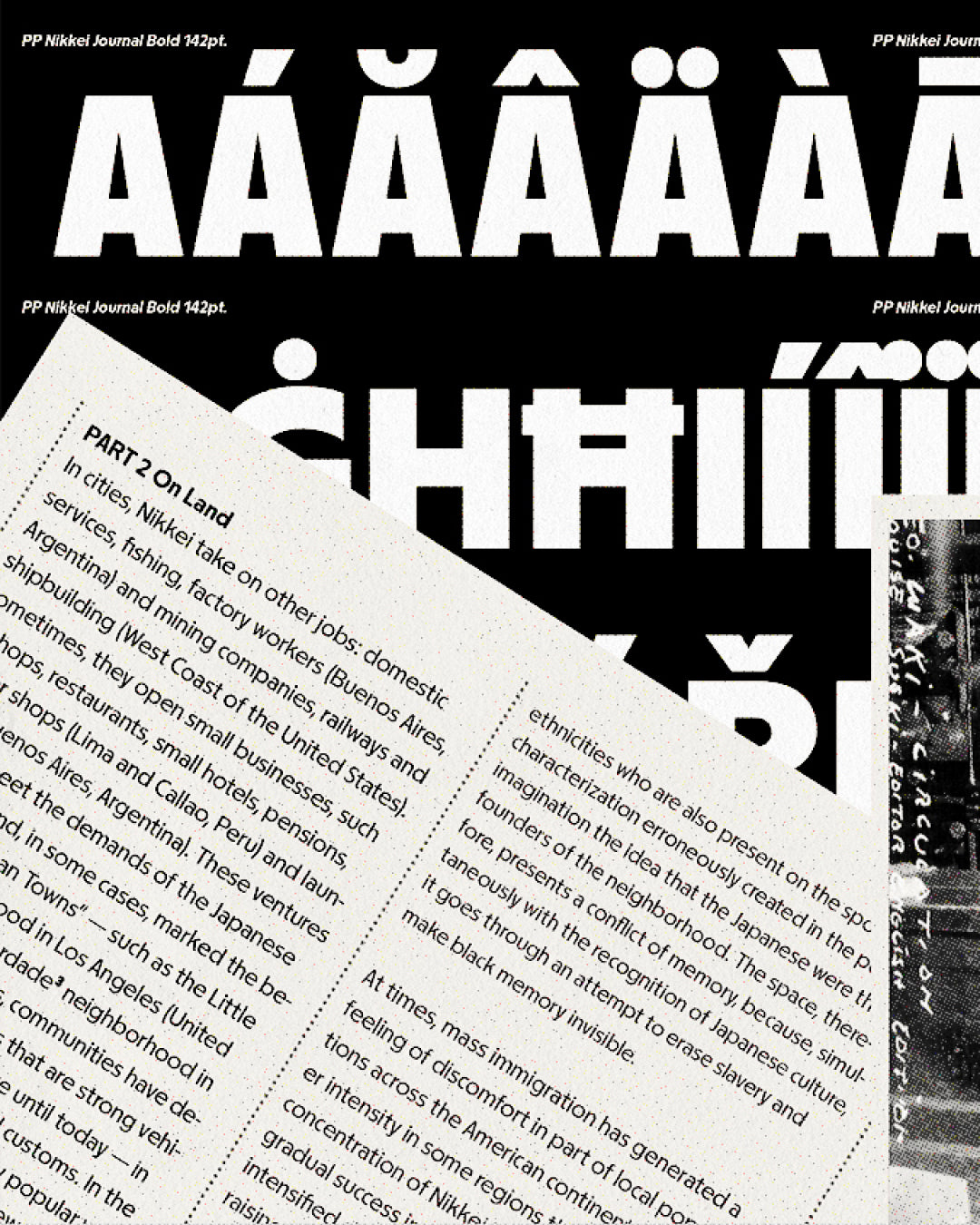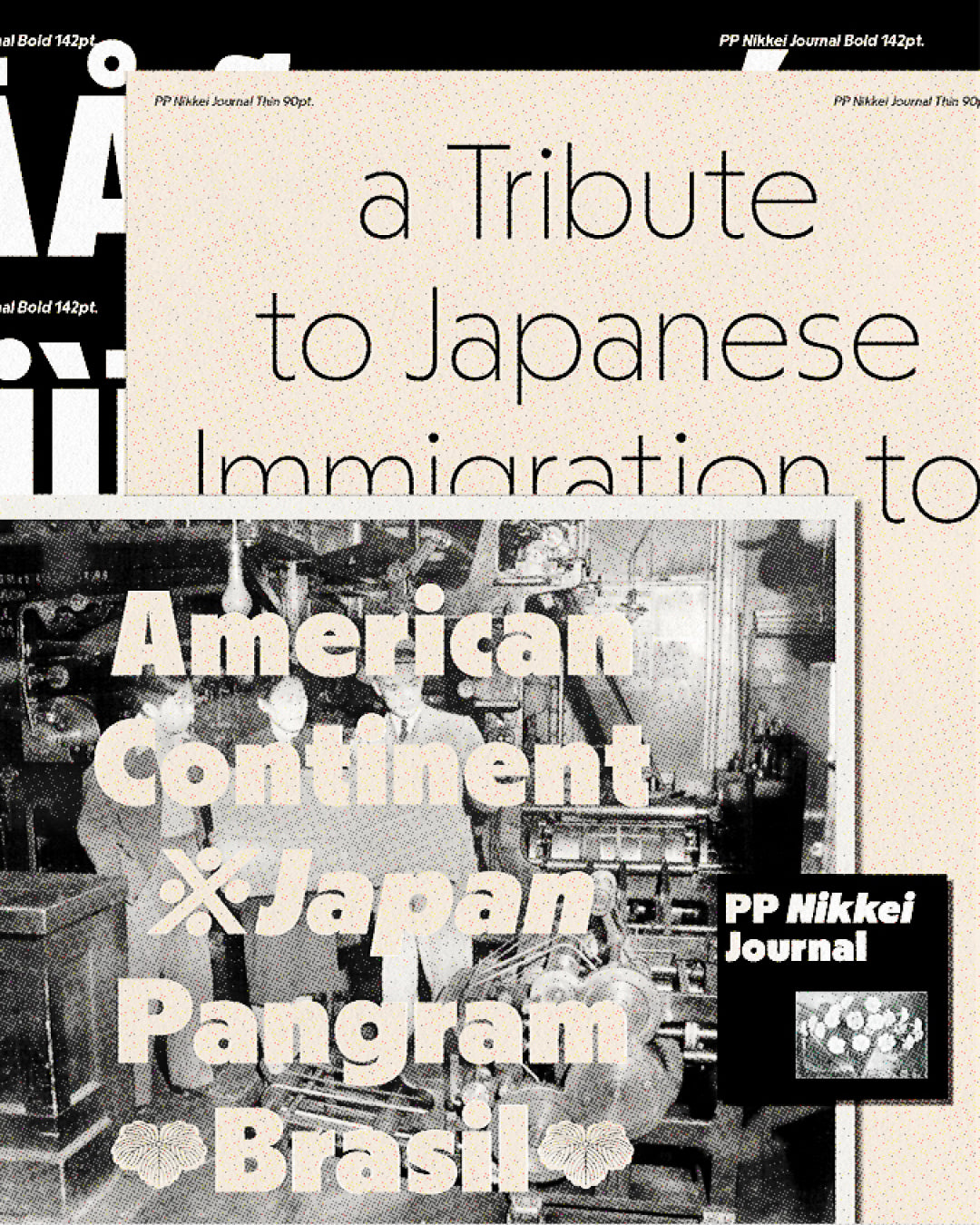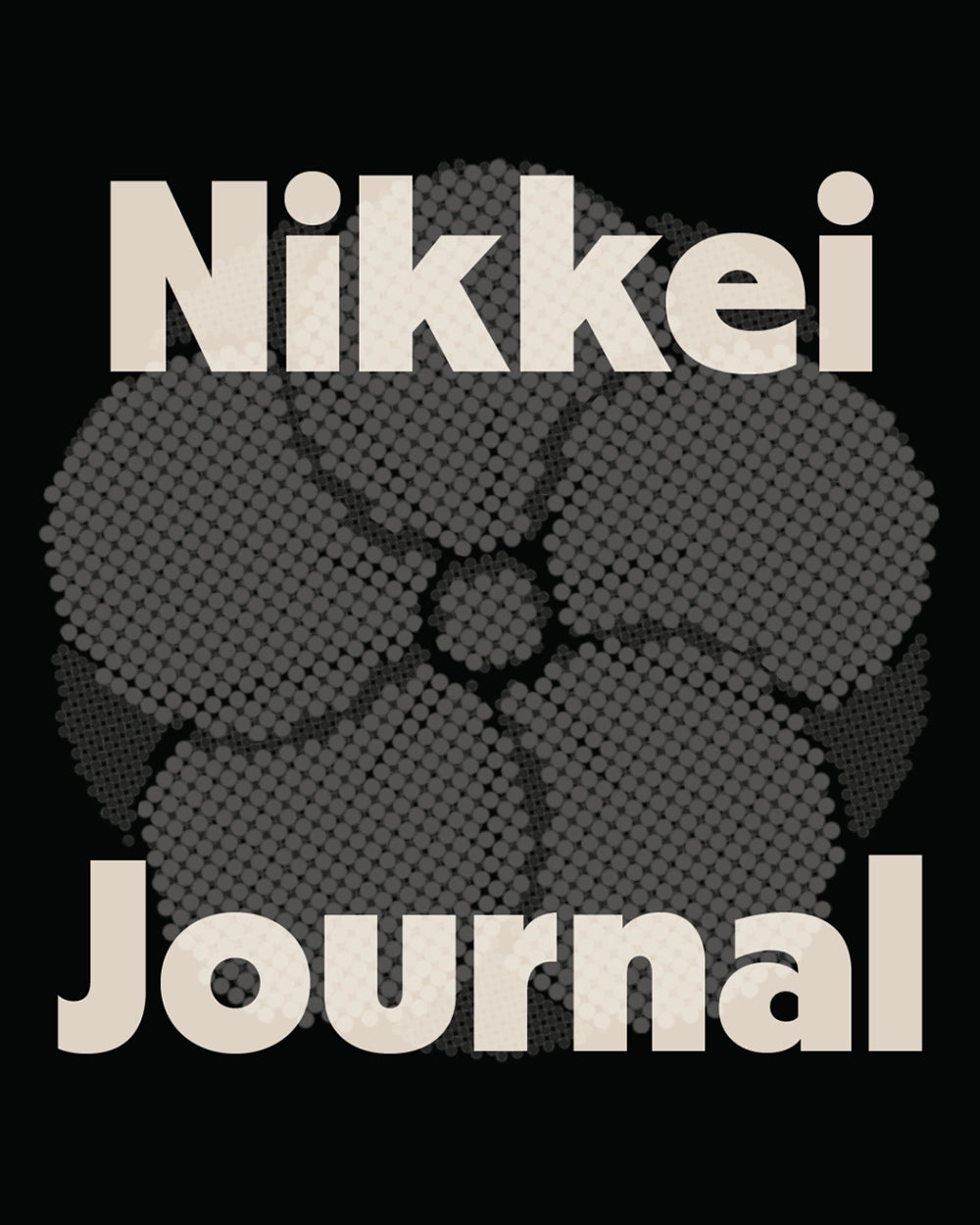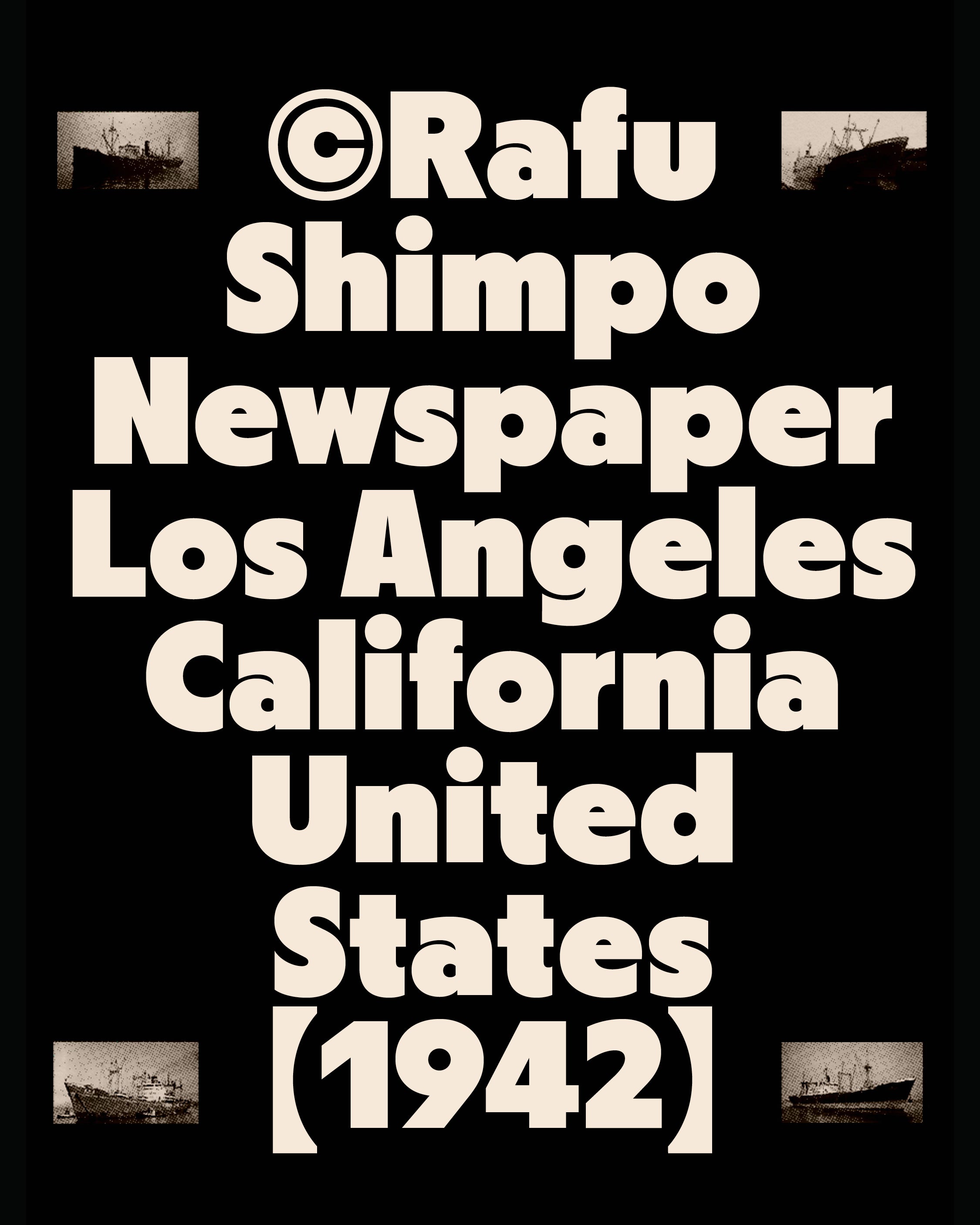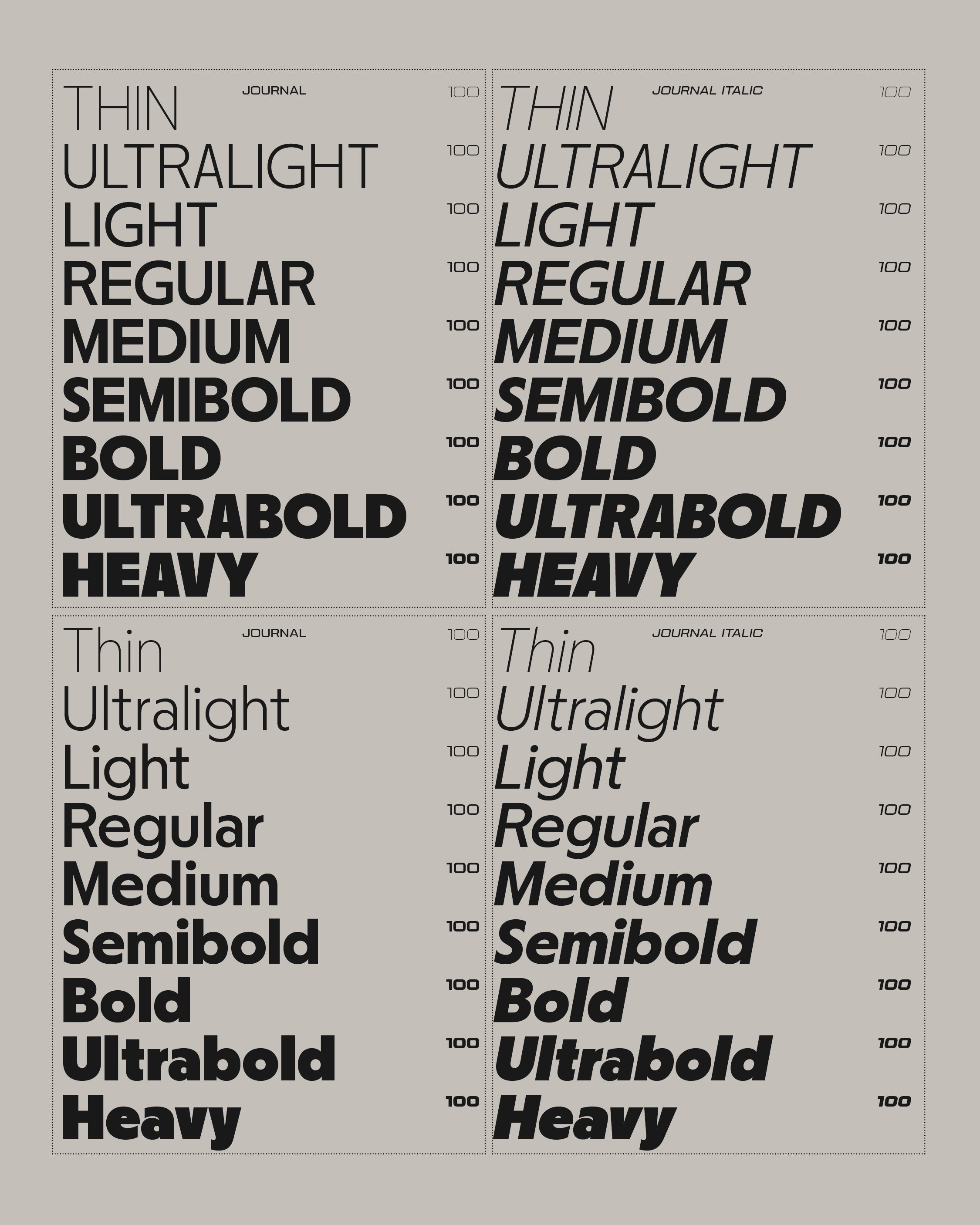
Nikkei Journal
On the American continent.
Nikkei Journal
A tribute to Japanese immigration to America.
Nikkei Journal
Honoring the stories of Japanese immigrants and their descendants through typography. “Nikkei” refers to Japanese individuals and their descendants who live outside Japan. Five typographic systems were made, each expressing unique concepts, yet all interlaced by a common historical narrative.
Nikkei Journal
The inspiration came from various sources, including hand-lettered on ships; newspapers of the Nikkei communities; Japanese family crests. Offering versatile title fonts whose proportions and stylistic alternatives allow for playful options for title compositions. This process began on June 18, 1908, when the ship Kasato Maru arrived in the country bringing 781 workers to farms in the interior of São Paulo. Consequently, June 18 was established as the national day of Japanese immigration. In 1973, the flow stopped almost completely after the Nippon Maru immigration ship arrived; at that time, there were almost 200,000 Japanese settled in the country. Currently, there are approximately one million Japanese-Brazilians, mostly living in the states of São Paulo and Paraná. According to a 2016 survey published by IPEA, in a total of 46 801 772 Brazilians' names analyzed, 315 925 or 0.7% of them had the only or last name of Japanese origin. The descendants of Japanese are called Nikkei, their children are Nisei, their grandchildren are Sansei, and their great-grandchildren are Yonsei. Japanese-Brazilians who moved to Japan in search of work and settled there from the late 1980s onwards are called dekasegi. Due to the expansion of coffee plantations, which was the major driver of the Brazilian economy from the second half of the 19th century until the 1920s, there was a demand for cheap workforce in rural São Paulo. The first official visit to pursue a diplomatic trade agreement with Japan took place in 1880. On November 16 of that year, Vice Admiral Artur Silveira da Mota began negotiations in Tokyo to establish a Treaty of Friendship, Commerce and Navigation between the two countries. Mota was received by the Vice-Minister of Foreign Affairs, Kagenori Ueno.
Nikkei Journal is variable
Nikkei Journal's Features
Proportional Caps
B D E F H L P R T U Z
Case sensitive forms
Alternate a
Alternate g
Alternate S
Standard ligatures
A Typeface Woven With Memory.
Newspapers played a crucial role in preserving Japanese culture among immigrants abroad, representing one of the first significant cultural expressions in the new territories. Inspired by the geometric letters found in these periodicals, the Nikkei Journal reflects the historical importance and cultural richness of these communities, perpetuating their traditions and stories through typography.
PP Nikkei is a tribute to Japanese immigration to America through typography, honoring the stories of Japanese immigrants and their descendants. “Nikkei” refers to Japanese individuals and their descendants who live outside Japan.